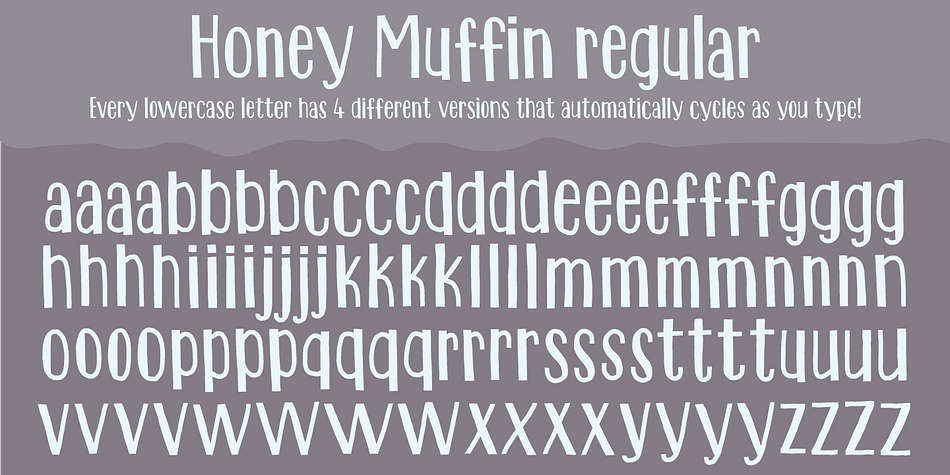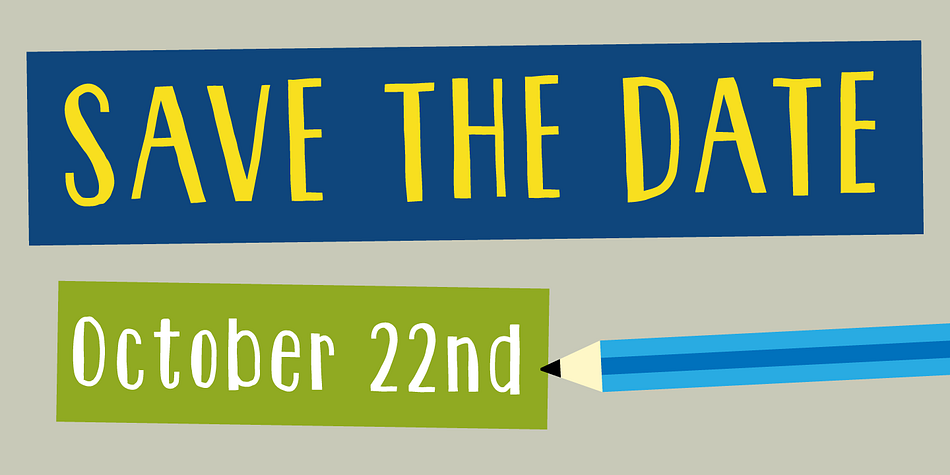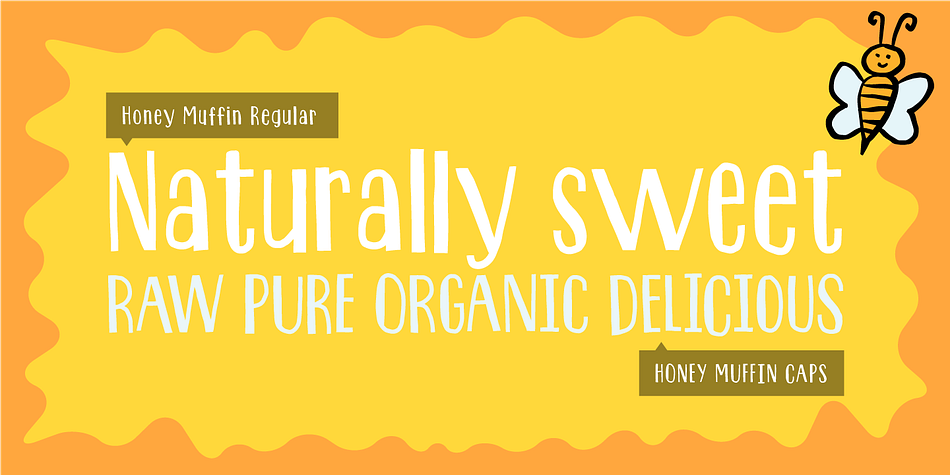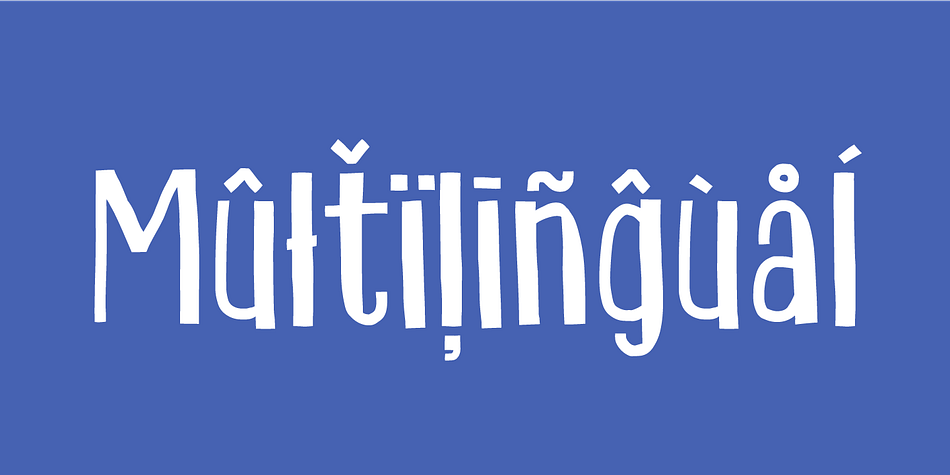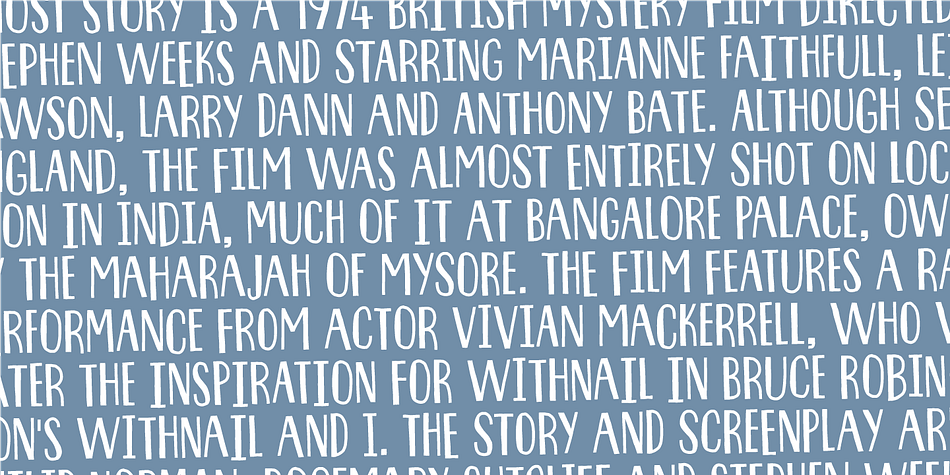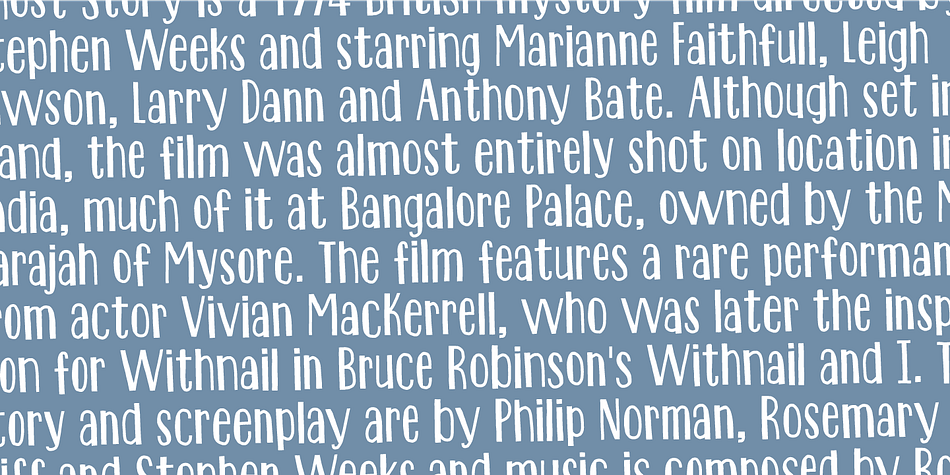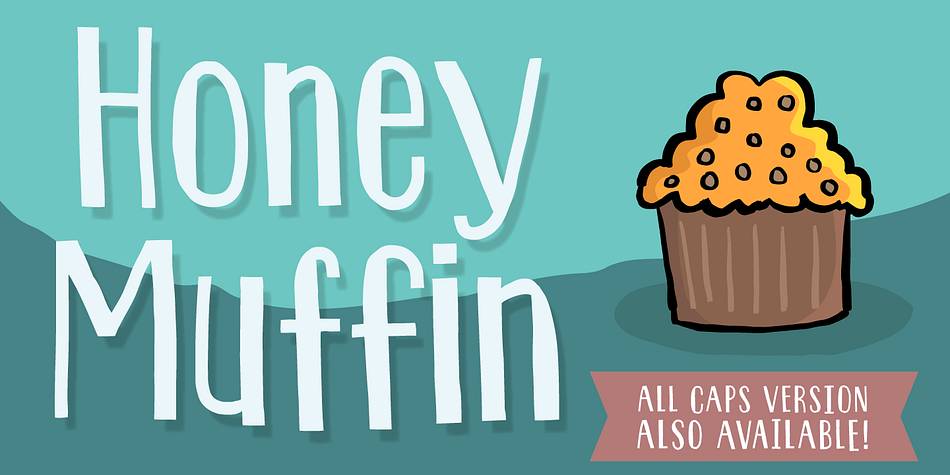
Designed by Jakob Fischer, Honey Muffin is a hand display and kids font family. This typeface has four styles and was published by Pizzadude.dk.
Honey muffins are delicious, but unfortunately full of calories. The Honey Muffin font is not full of calories, though - but full of letters! 4 versions of each lowercase letter in the Regular version, and 4 different letters in the CAPS version.
When making this font I wasn’t really sure if I wanted to make it an all caps version, or throw in a lowercase set. I never really got to the point of any decision, so I made both versions! :)
The font is handmade, using a round brush and then cleaned up digitally - but leaving the handmade feeling for you to enjoy!